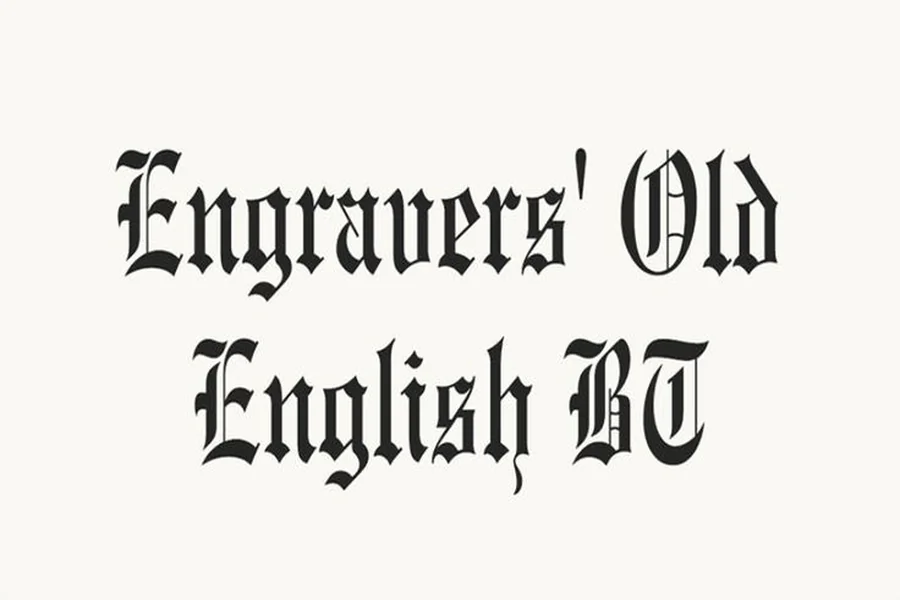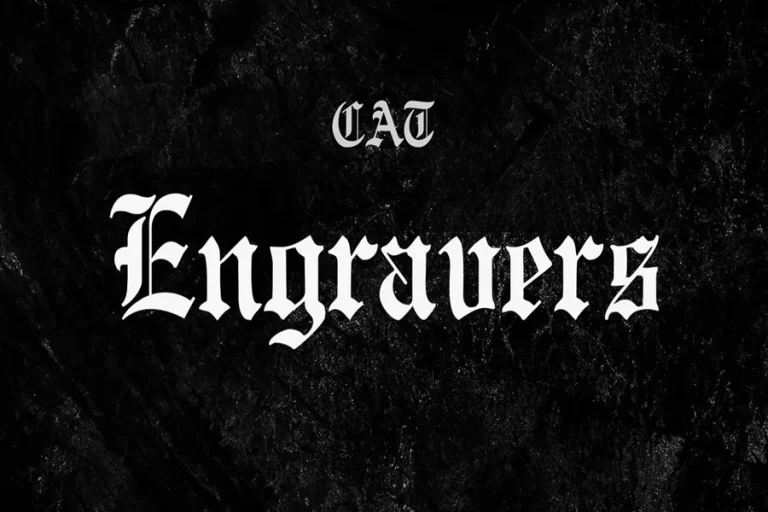
Engravers Old English Font Style History And Creative Uses 2025
Engravers Old English Font is a classic font that inherits power and charm of tradition and sophistication. It feels royal and historic. This font is very popular among many people since it gives any design the authority and character. Whenever you have the Engravers Old English Font you also tend to imagine certificates books tattoos logos and old fashioned branding. The lines and the harsh edges provide an impression of strength and tradition.
The font is more than 50 years old and continues to dominate the contemporary design. It entails aesthetic fusion of the old world and contemporary visual equity. The designers tend to use it when they wish to convey seriousness trust or tradition. It can be used both in print and digital forms with caution.
Engravers Old English Font is unique since it does not attempt to be fashionable. It stays true to its roots. This renders it eternal and admired in most sectors.
History and Background of Engravers Old English Font
Engravers Old English Font is based on the blackletter that was also famous in Europe centuries ago. It was applied in the early manuscripts and printed books in these styles. The letters were bold and in such a way that they could be carved or engraved without much difficulty.
The term engravers indicates how it was used in engraving on metals and in formal printing. This typeface was created with the appearance of being bold and sharp even when cut in hard materials. Gradually it turned into the symbol of power and custom.
At the present time Engravers Old English Font was popular in certificates logos band name and official document. It has an air of formality that is hardly matched by fonts. Today it is still popular with designs that wish to have either a vintage or luxurious feel.
Where Engravers Old English Font Works Best
The Engravers Old English Font is most effective in the designs which require a very clear visual identity. It is commonly applied on headlines, logos and titles as opposed to lengthy body texts. It is easy to notice and difficult to overlook its structure.
This typeface is normally applied in school symbols sporting groups logos in tattoos and branding luxurious goods. It is displayed as well in historical posters and book covers. It is also applied by many designers when they wish to give out wedding invitations in a classic and noble appearance.
The Engravers Old English Font is also used in social media graphics and thumbnails by the digital creators who wish to express themselves boldly. It is complemented with plain backgrounds and neutral colors.
Design Characteristics of Engravers Old English Font
Engravers Old English Font has bold strokes and lines with sharp edges. All the letters are hewn as opposed to drawn. This makes it prominent in the page.
The distance between them is minimal contributing to its short and strong appearance. The letters are really bold in the uppercase and are commonly utilized that way to make the logos or initials. Small letters are equally strident.
Due to its audaciousness, this font is better applied in sparse applications. Too much text can feel heavy. However, when properly applied it produces a powerful visual effect, which is hardly replicated by other fonts.
How to Use Engravers Old English Font Effectively
In order to utilize Engravers Old English Font effectively you are to pay attention to clarity and contrast. Use a plain without serifs body type. This contributes towards counterbalancing the bulky appearance of the primary font.
Select white backgrounds to enable the letters to be conspicuous. Do not have in-your-face designs that are competing with font details. Spacing is also a wise use of spacing.
This is a good font to use in titles and logos (short phrases). Long paragraphs do not go well with it but it suits emphasis. When applied in a well thought manner it might take your whole design to a new level.
Popular Names That Match Engravers Old English Font Style
These are over fifty names that go well with the traditional and daring look of Engravers Old English Font. These are good names that can be used as logos brand names or as creative projects.
Alexander
William
Edward
Henry
Charles
Arthur
Richard
George
Frederick
Theodore
Leonard
Victor
Albert
Benjamin
Samuel
Jonathan
Christopher
Nicholas
Matthew
Anthony
Sebastian
Dominic
Gabriel
Nathaniel
Maximilian
Augustus
Julian
Vincent
Marcus
Leonardo
Isabella
Victoria
Catherine
Elizabeth
Charlotte
Margaret
Eleanor
Beatrice
Josephine
Amelia
Florence
Adelaide
Penelope
Genevieve
Matilda
Rosalind
Ophelia
Anastasia
Helena
Arabella
Seraphina
Theodora
These names reflect strength elegance and tradition which align perfectly with the personality of Engravers Old English Font.
Is Engravers Old English Font good for body text?
It is better for headlines and short text rather than long paragraphs
Can Engravers Old English Font be used for modern designs?
Yes when paired with clean layouts it works well in modern design
What fonts pair well with Engravers Old English Font?
Simple sans serif fonts work best to balance its bold style